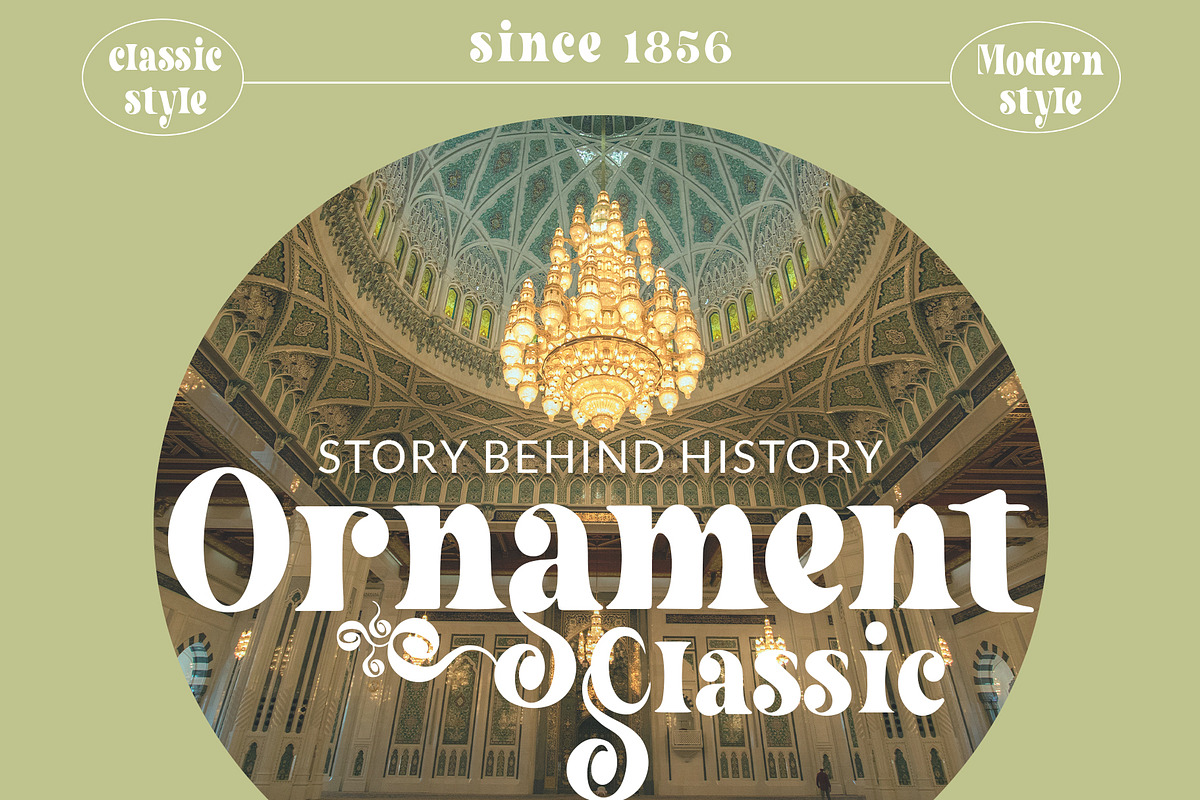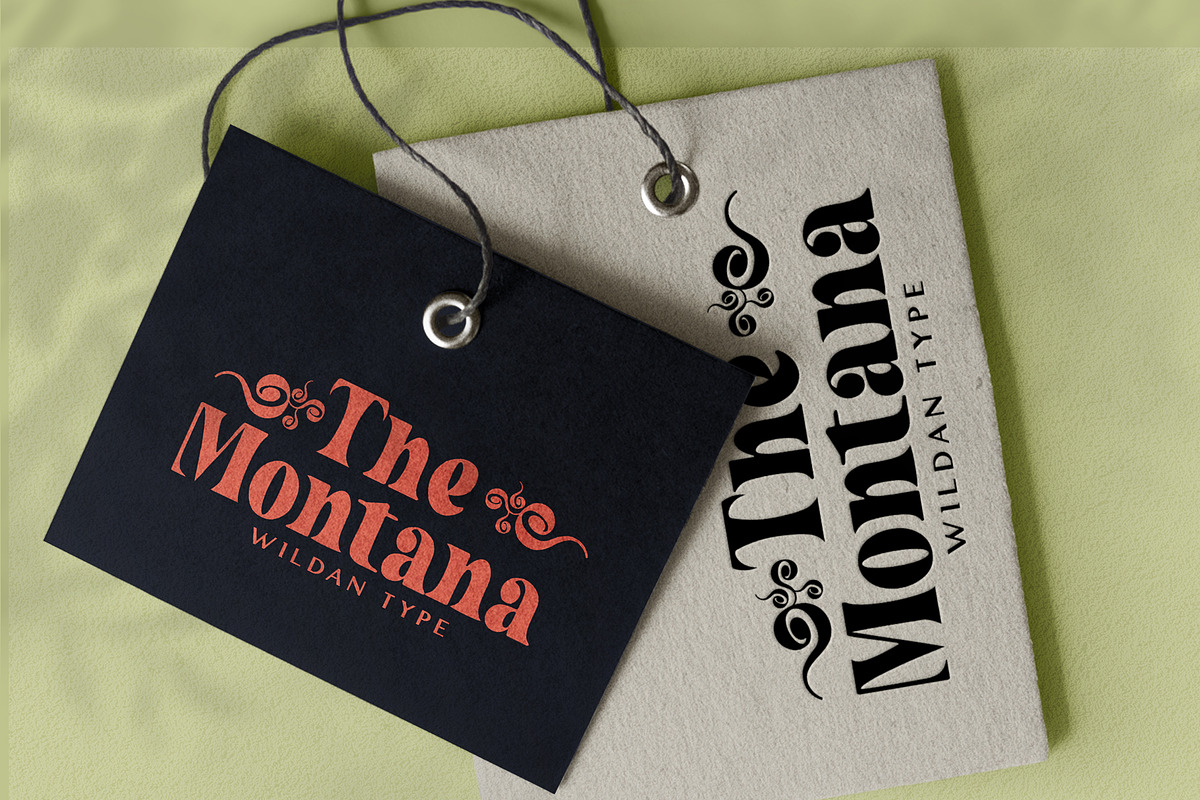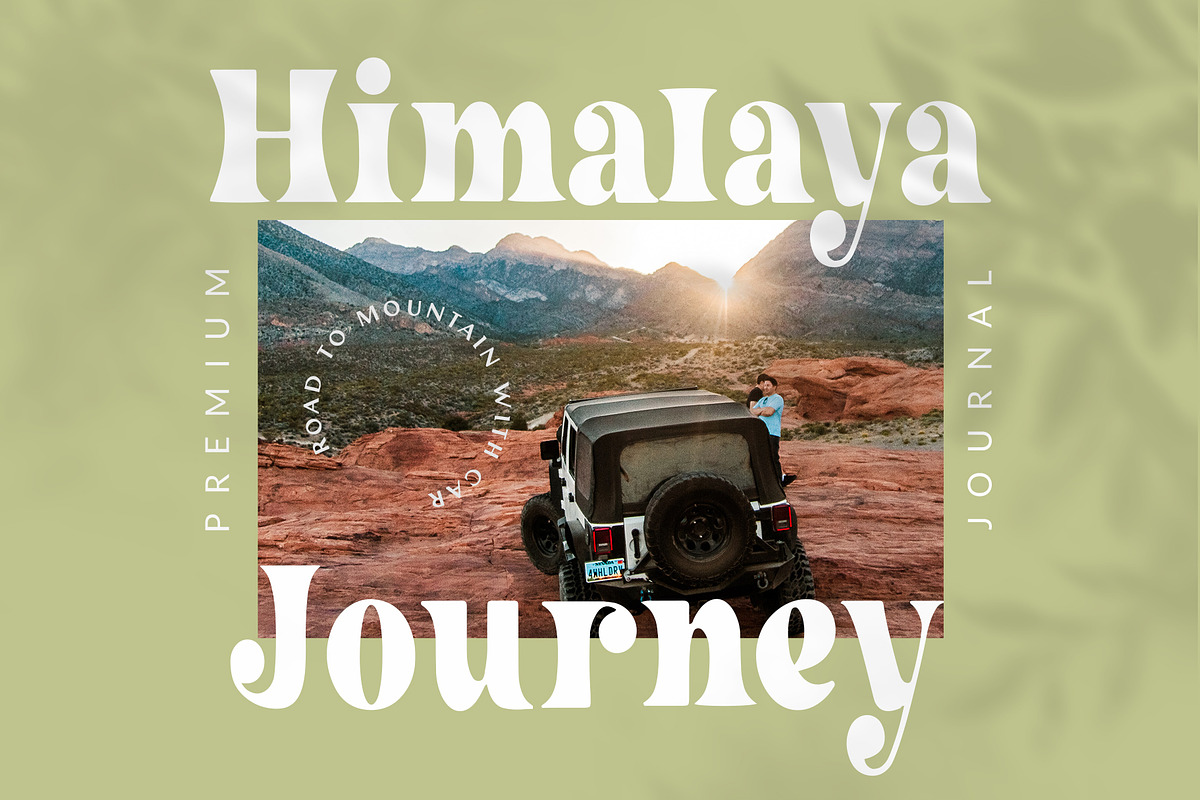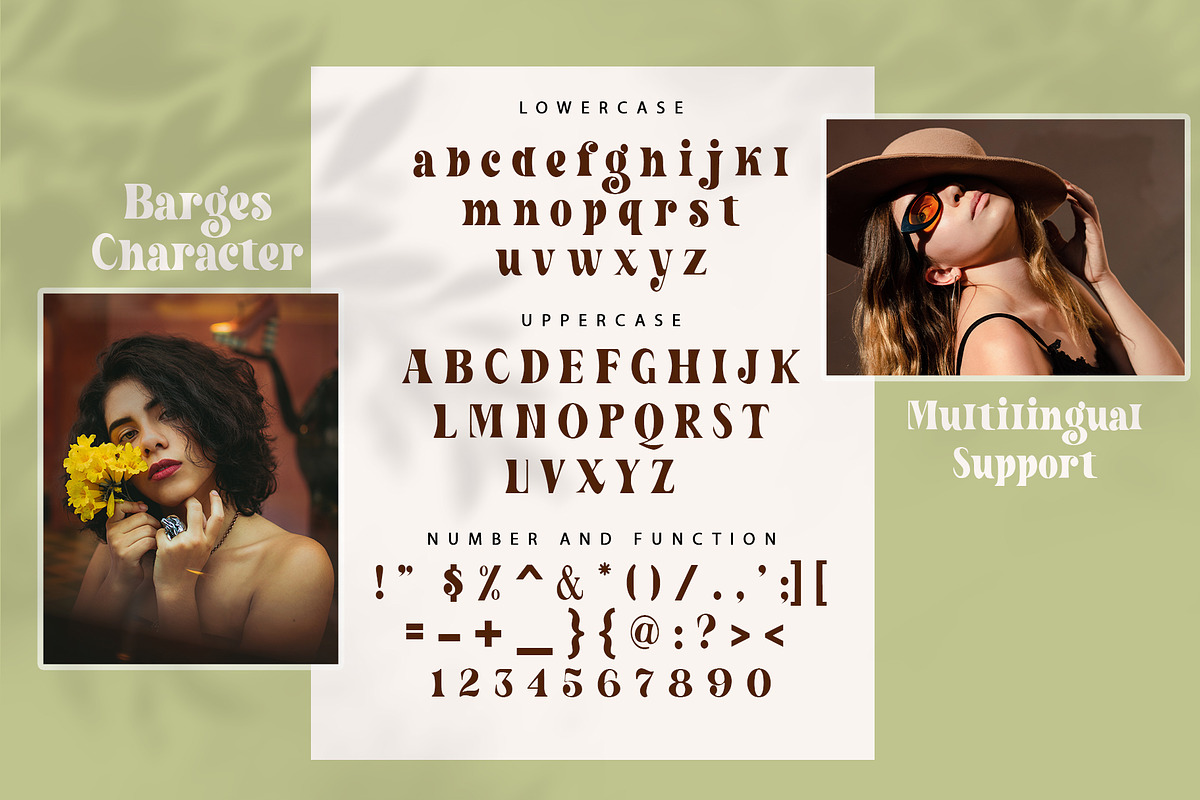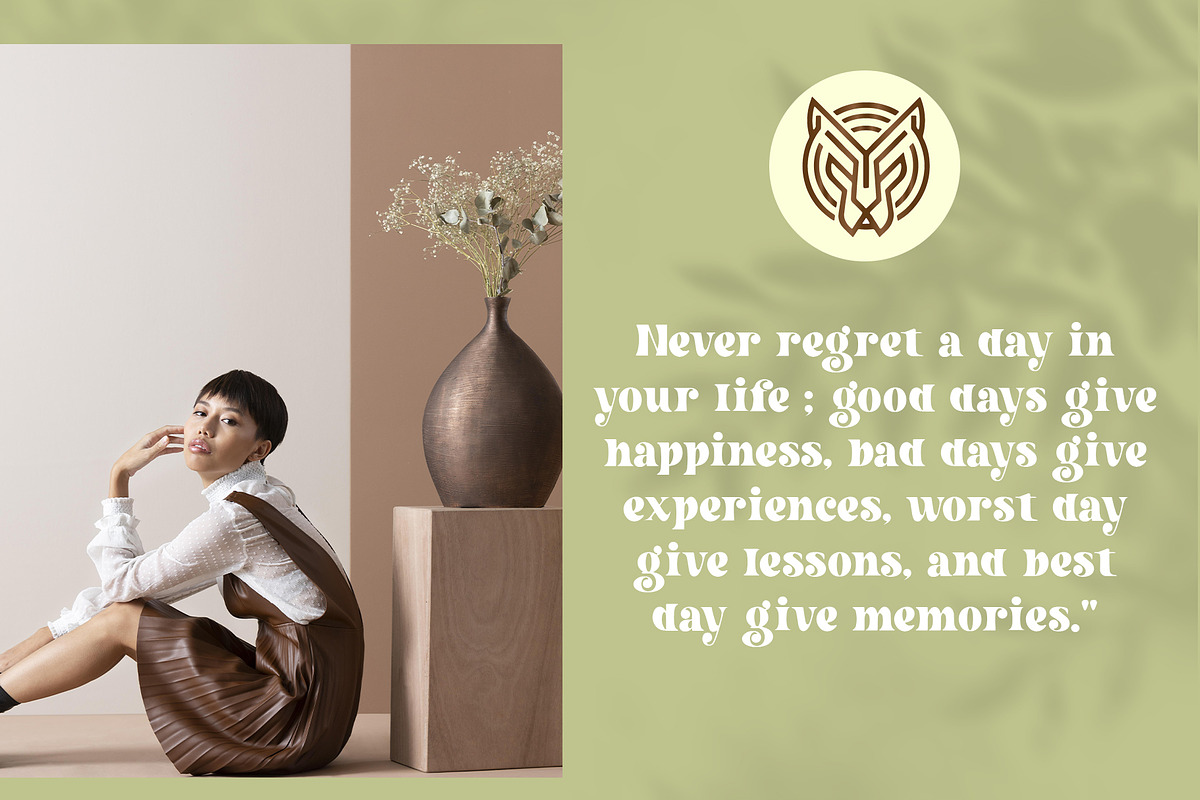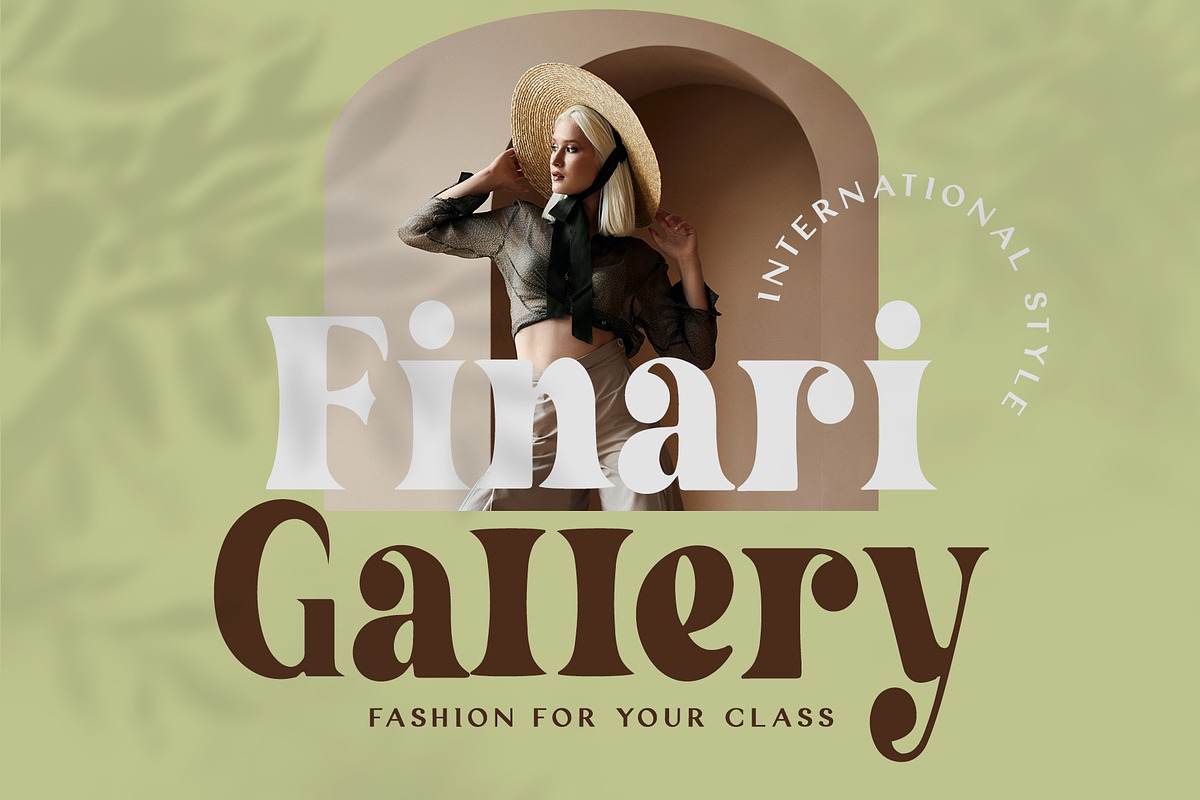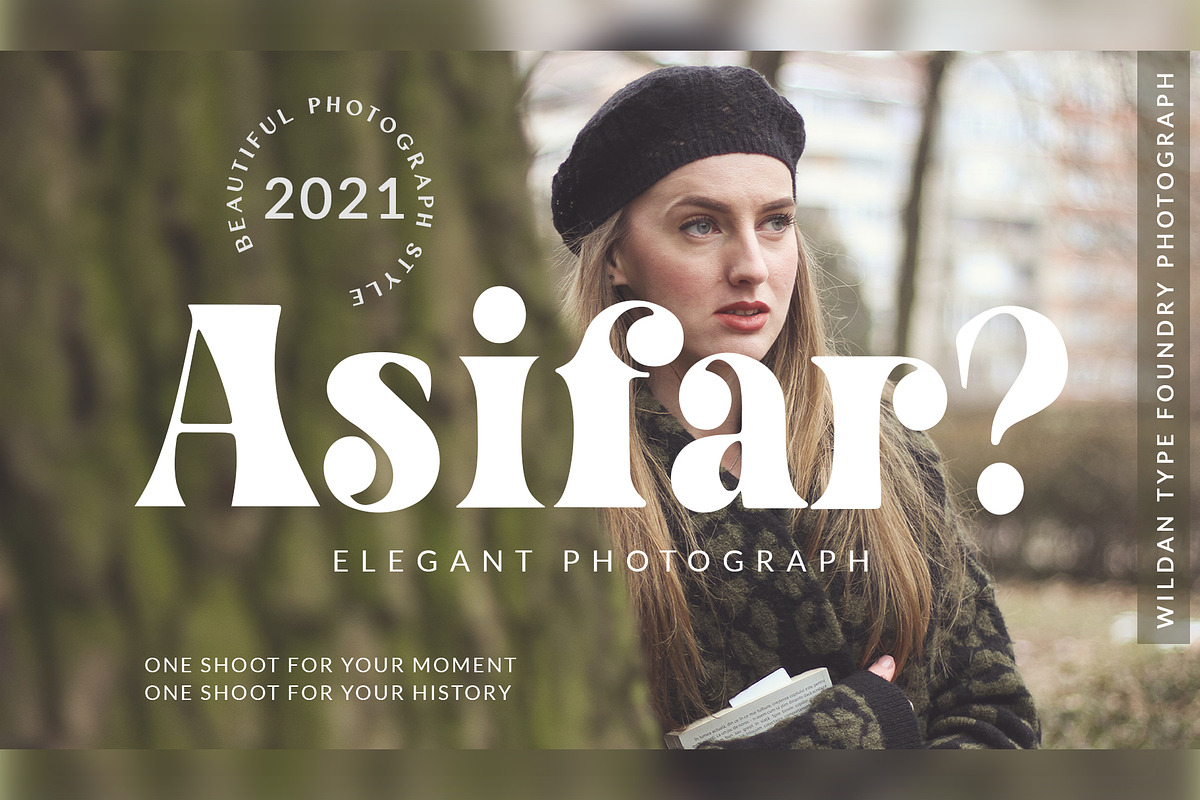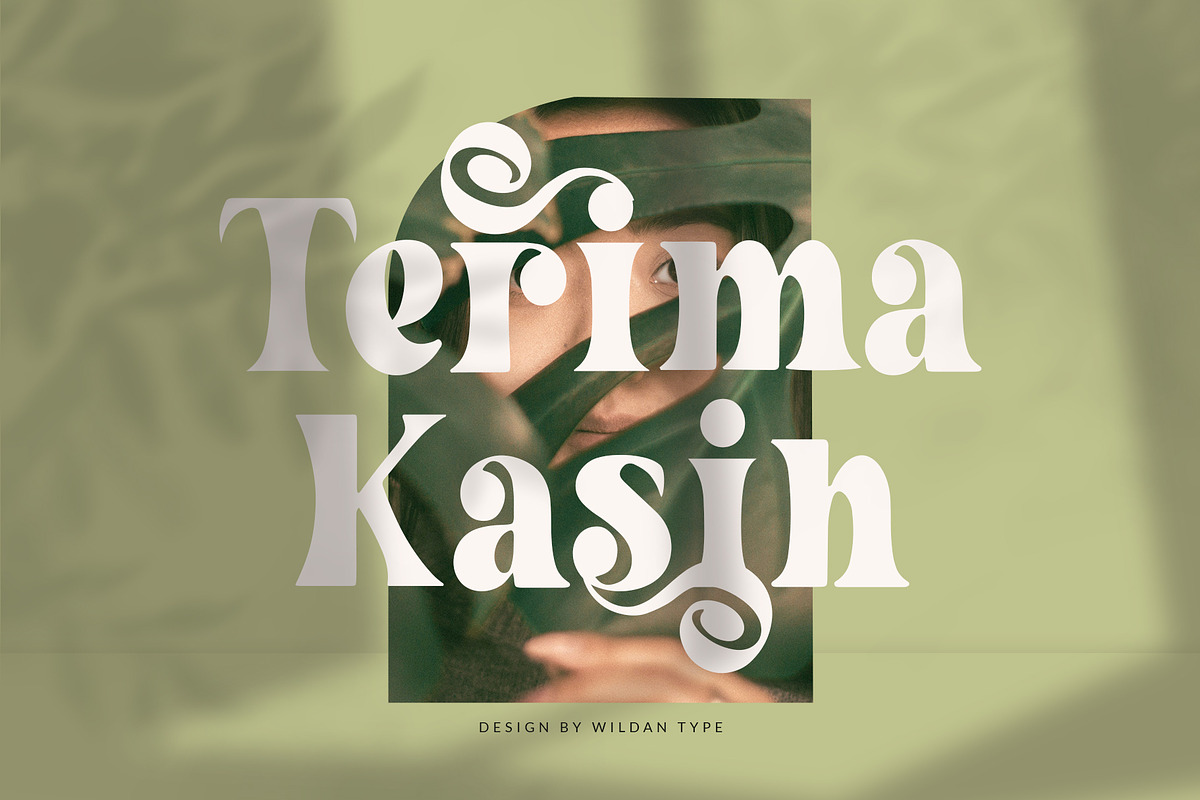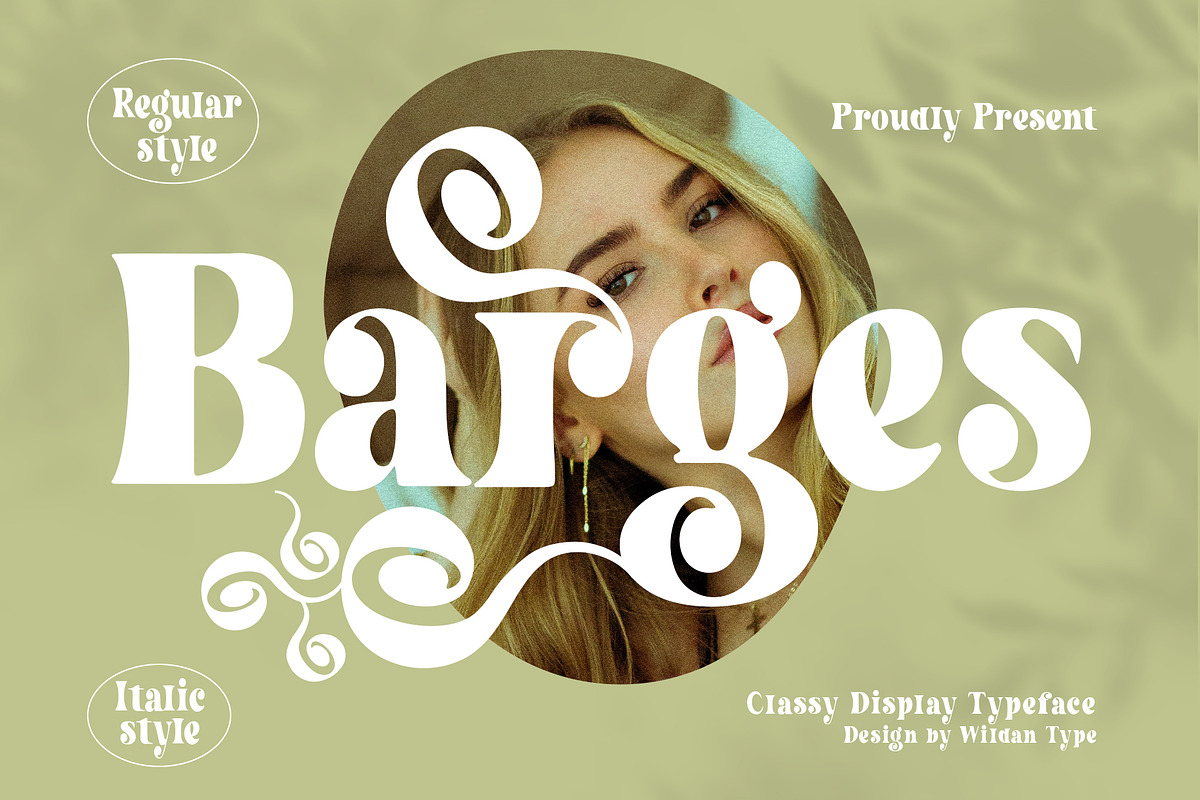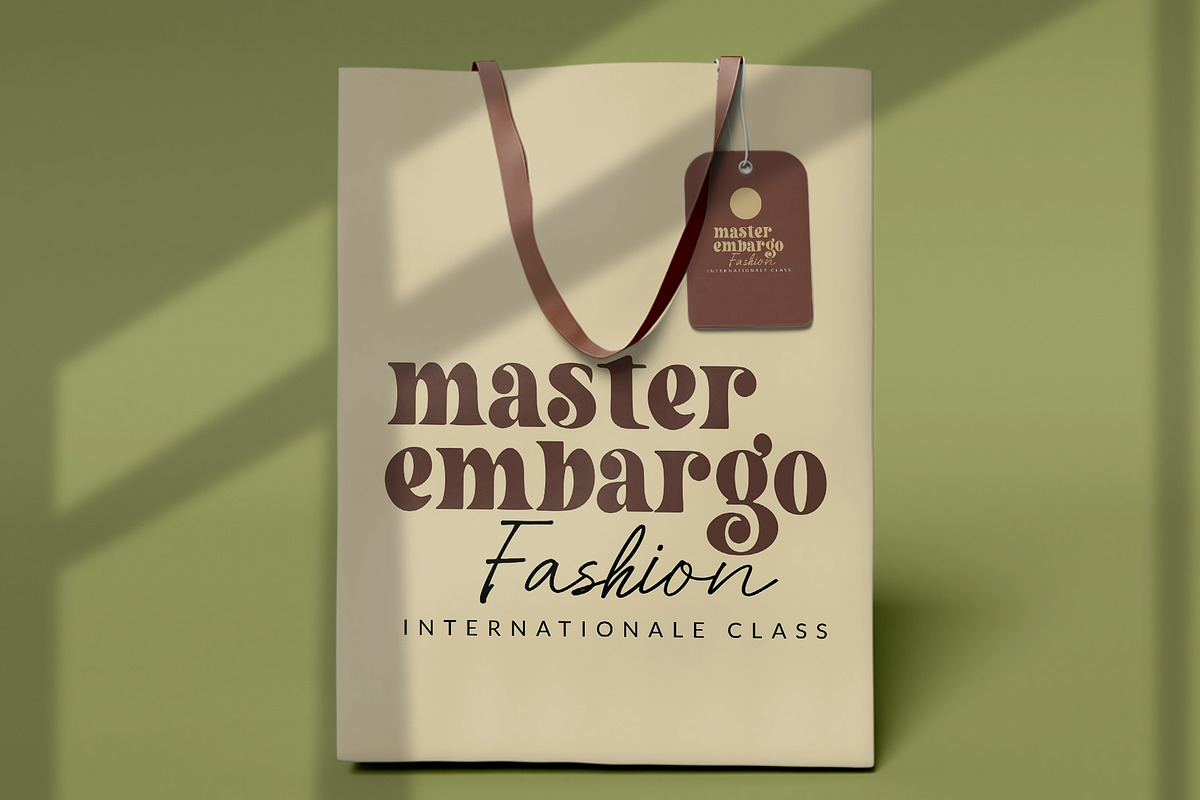
Barges
Introducing new typeface. Barges- A modern, luxury, fashionable display font. It has unic construction for future style. Barges perfectly used for product presentation, elegant logo design, packaging or invitation cards or heading text. it is allcap with symbol and multilingual support
Two style,
Barges Italic Barges Regular